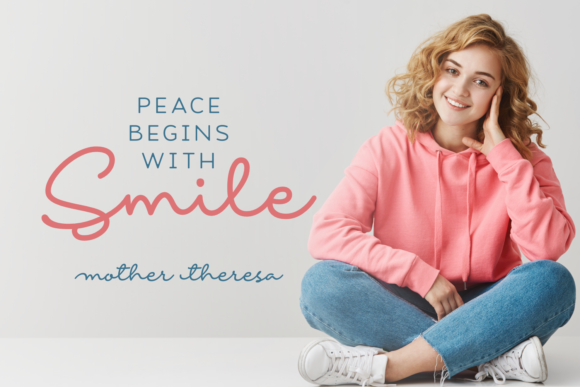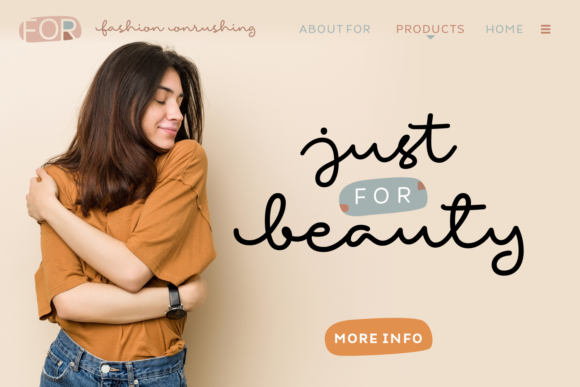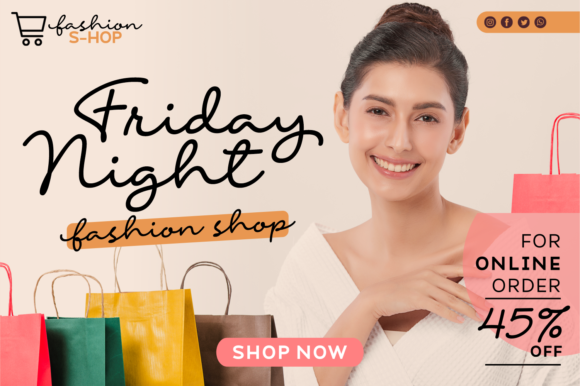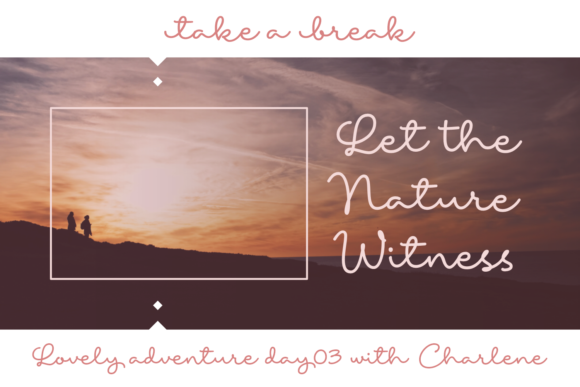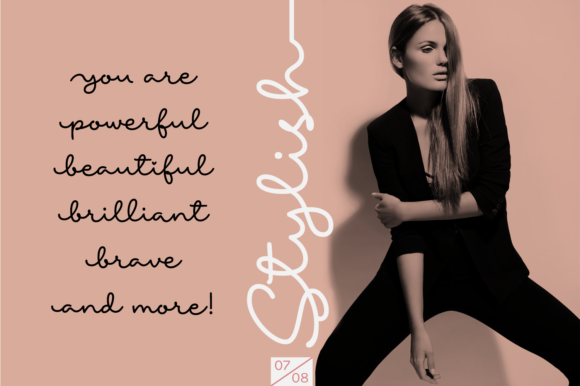
Introduction to Miss Oliver Font
Miss Oliver is a flowing handwritten font, described by an elegant touch, perfect for your favorite projects.
Fall in love with its incredibly distinct and timeless style and use it to create spectacular designs This font is PUA encoded which means you can access all of the glyphs and swashes with ease.